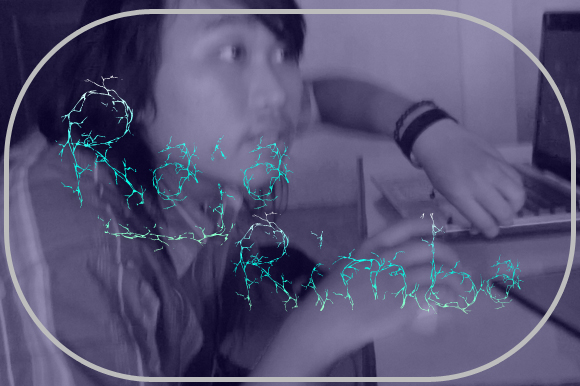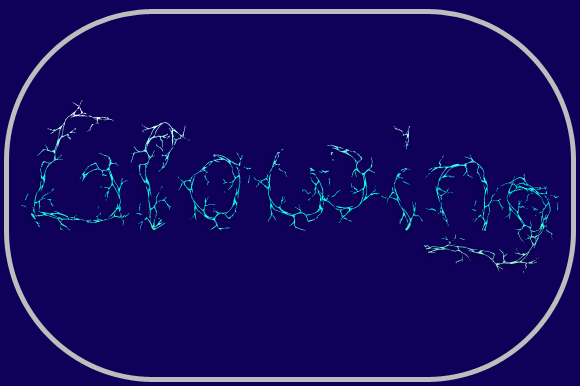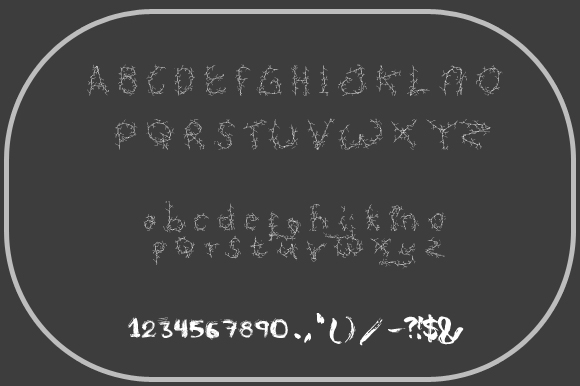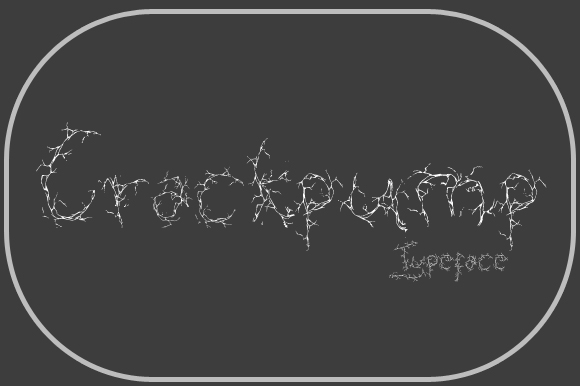
Crackpump Font: The Ultimate Guide to this Stunning Typeface
Are you a designer or crafter looking for a unique and eye-catching font to elevate your creative projects? Look no further than the Crackpump font, designed by the talented Gblack Id. This font is a game-changer, and in this article, we’ll dive into its features, uses, and benefits.
What is Crackpump Font?
Crackpump font is a distinctive typeface created by Gblack Id, a renowned font designer. This font is characterized by its bold, edgy, and modern aesthetic, making it perfect for designs that require a statement piece. The Crackpump font features basic punctuation, ensuring that your text is not only visually appealing but also easy to read and understand.
Key Features of Crackpump Font
- Unique Design: The Crackpump font boasts a one-of-a-kind design that sets it apart from other fonts. Its bold and edgy aesthetic makes it perfect for designs that require a statement piece.
- Basic Punctuation: This font features basic punctuation, ensuring that your text is easy to read and understand.
- Versatility: The Crackpump font is highly versatile and can be used for a wide range of design projects, from logos and branding to posters and social media graphics.
- High-Quality: The font is designed with high-quality craftsmanship, ensuring that it looks great in any size or resolution.
Uses of Crackpump Font
The Crackpump font is an excellent choice for various design projects, including:
- Logos and Branding: Create a bold and memorable logo for your brand with the Crackpump font.
- Posters and Flyers: Use the Crackpump font to create eye-catching posters and flyers that grab attention.
- Social Media Graphics: Elevate your social media graphics with the Crackpump font, making your posts stand out from the crowd.
- Packaging Design: Add a touch of personality to your packaging design with the Crackpump font.
Benefits of Using Crackpump Font
By using the Crackpump font, you can:
- Enhance Your Design: Add a unique touch to your designs and make them more visually appealing.
- Increase Brand Recognition: Create a consistent brand image with the Crackpump font, making your brand more recognizable.
- Save Time: With its basic punctuation and easy-to-read design, the Crackpump font saves you time and effort in creating professional-looking designs.
Tips for Using Crackpump Font
To get the most out of the Crackpump font, follow these tips:
- Experiment with Sizes: Try different font sizes to create visual hierarchy and emphasis.
- Pair with Other Fonts: Combine the Crackpump font with other fonts to create a unique and harmonious design.
- Use it Sparingly: Use the Crackpump font sparingly to create a bold statement, rather than overwhelming your design.
| Font Name | Crackpump Font |
| Author | Gblack Id |
In conclusion, the Crackpump font by Gblack Id is a stunning typeface that can elevate your design projects to the next level. With its unique design, basic punctuation, and versatility, this font is perfect for designers and crafters looking to add a touch of personality to their work. By following the tips and guidelines outlined in this article, you can unlock the full potential of the Crackpump font and create designs that stand out from the crowd.